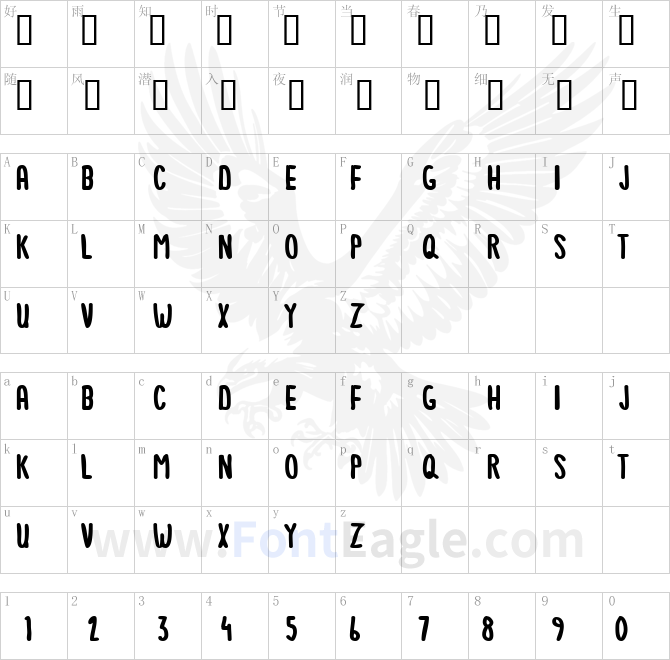
- Font name:Note To Self
- Font Subfamily ID:Macromedia Fontographer 4.1.4 Note To Self
- Font Full Name:Note To Self
- Font Version:Macromedia Fontographer 4.1.4 9/21/06
- Postscript:NoteToSelf